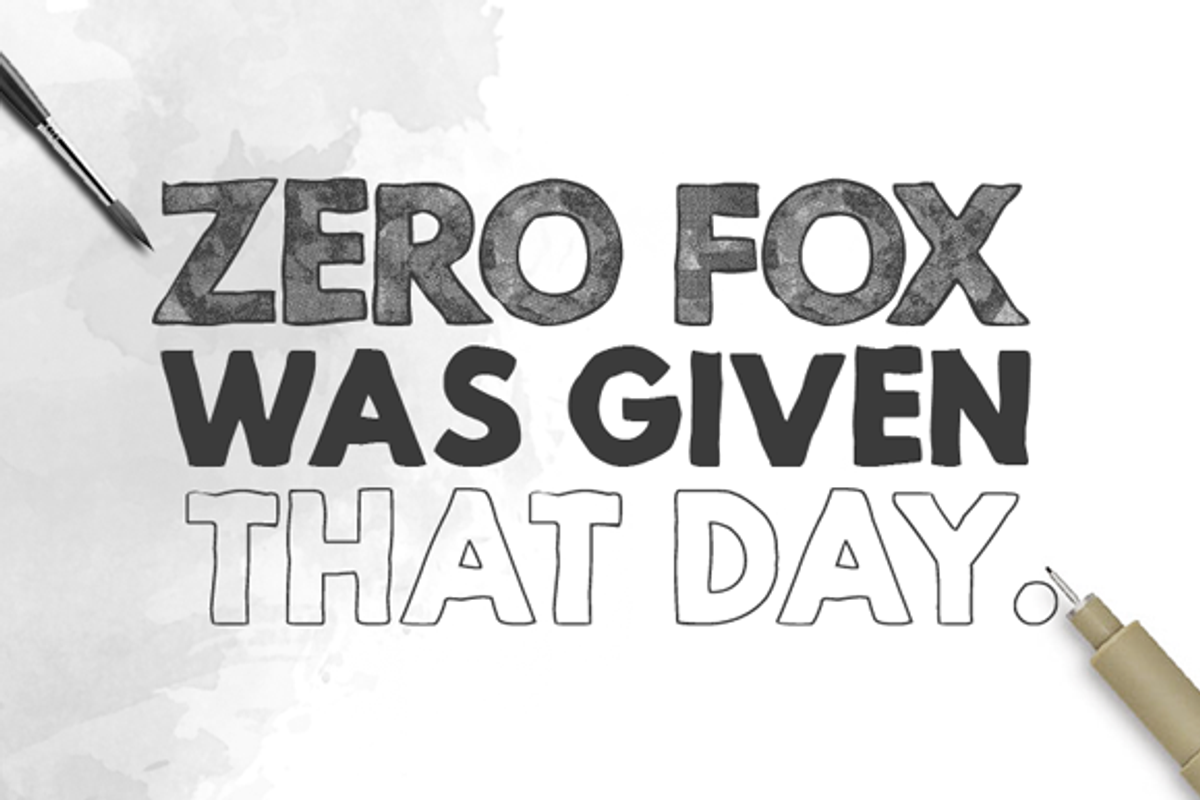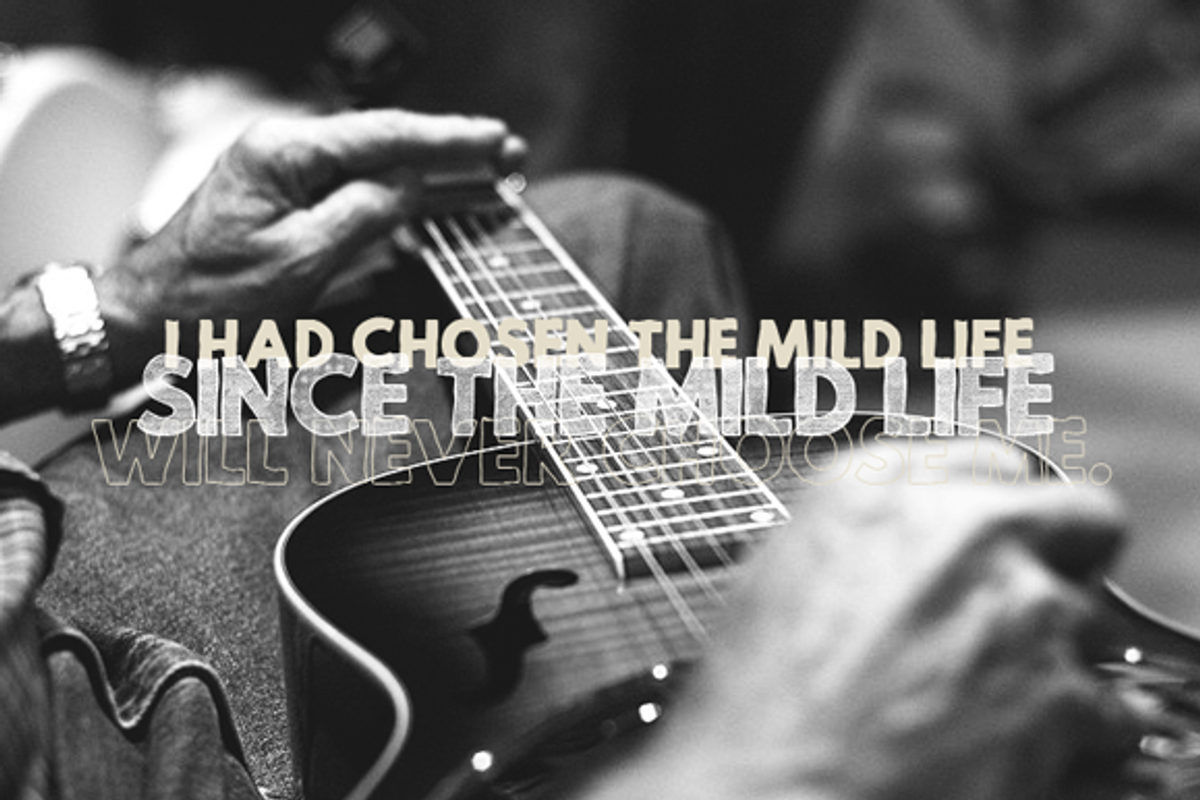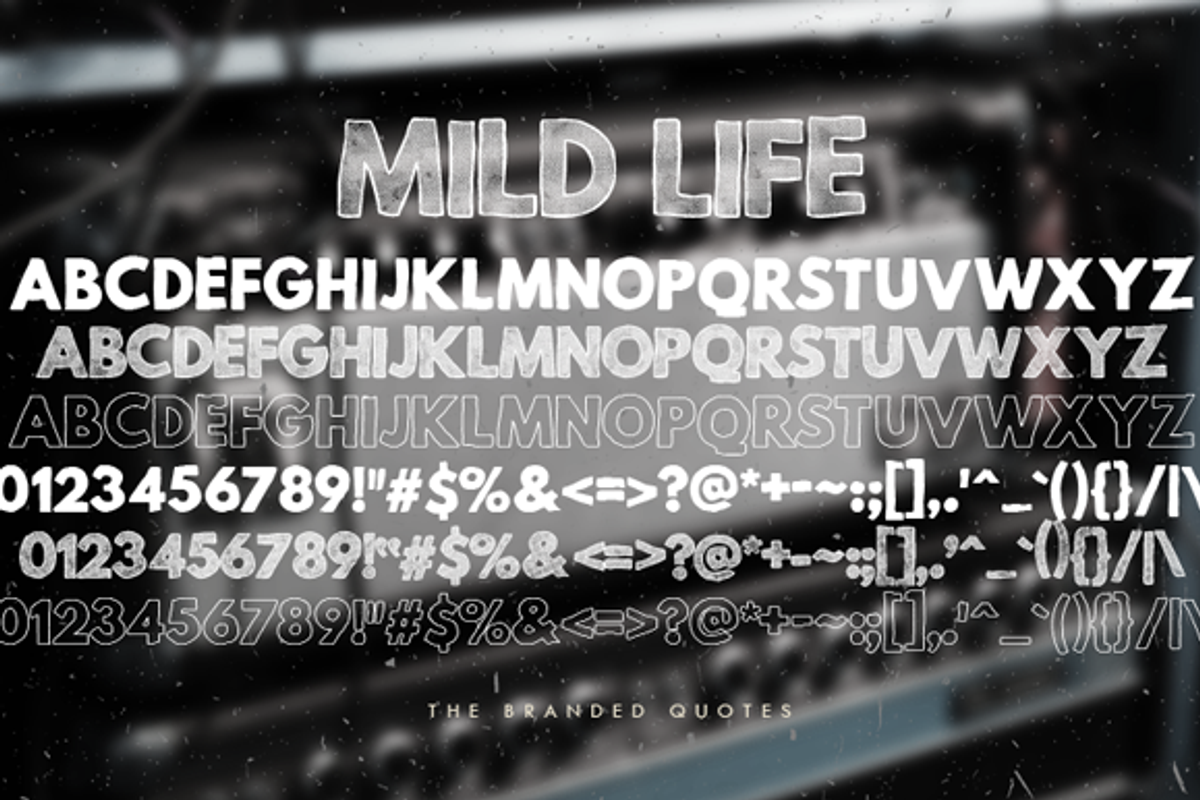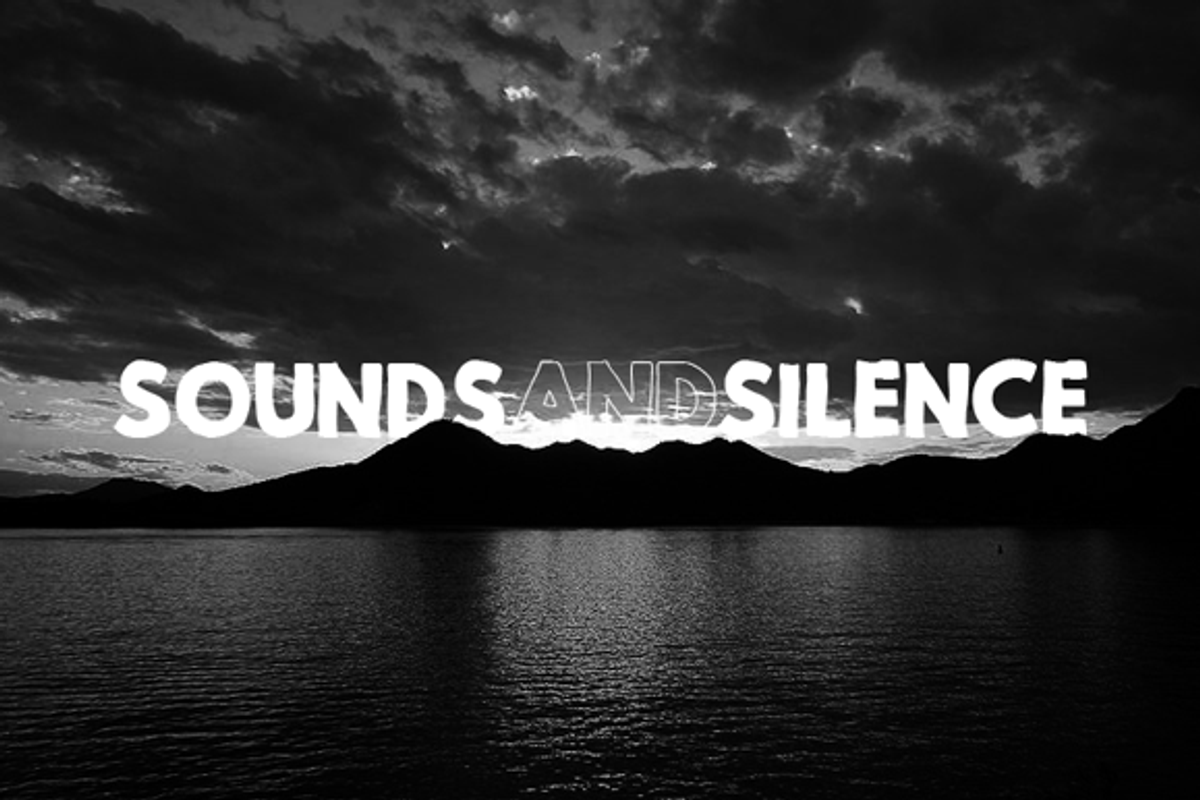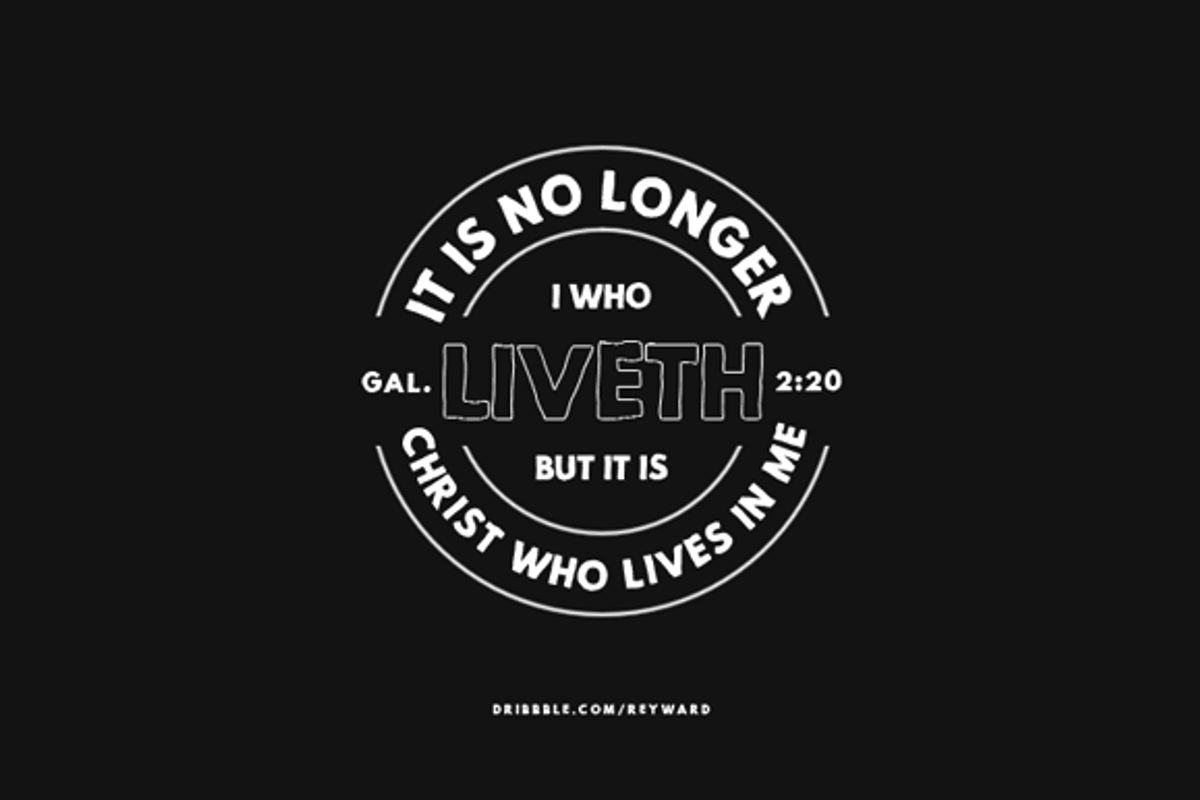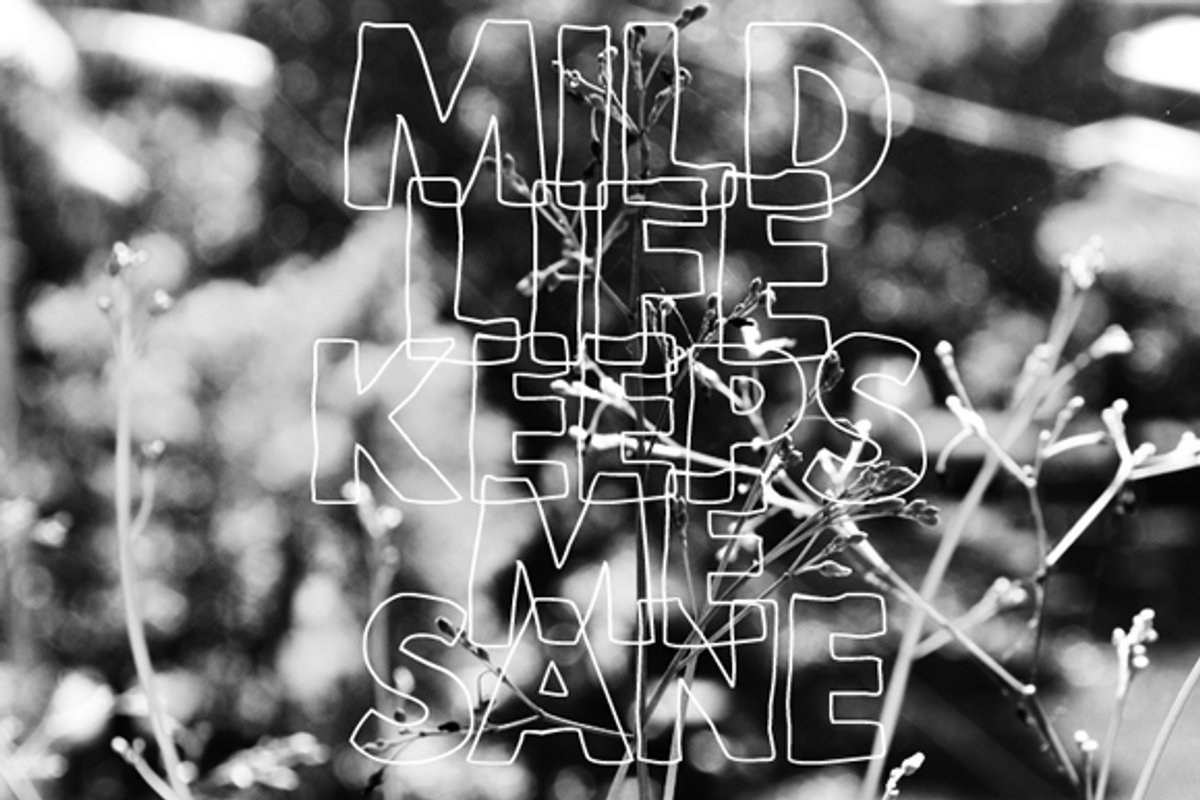
Mild Life Typeface
Mild Life Typeface by The Branded Quotes is a font selected for branding, posters, packaging, typography.
- Mild Life Regular Regular
- Mild Life Outline
- Mild Life Textured Textured
Why Mild Life Typeface is worth a look
Mild Life Typeface by The Branded Quotes fits naturally into Branding, posters, packaging, typography.